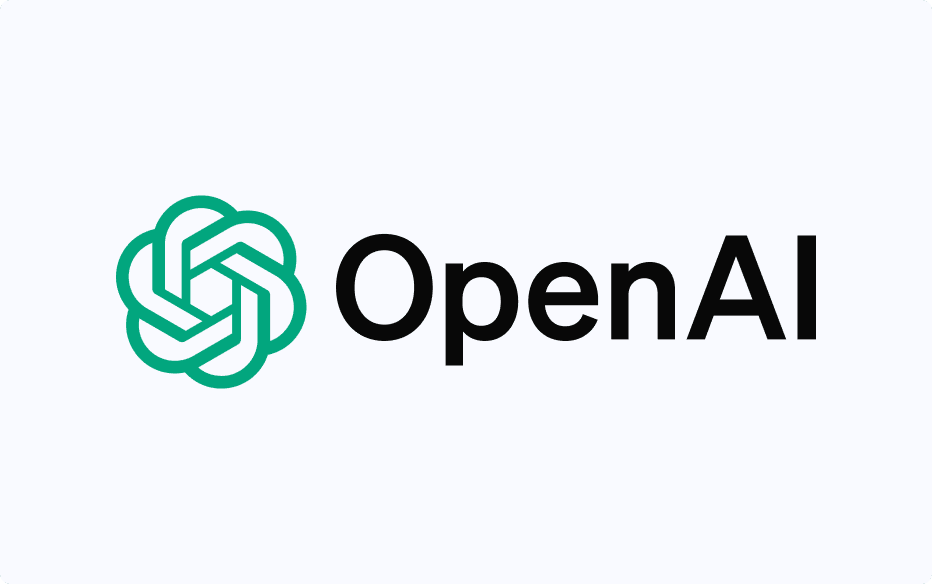
What Font Does OpenAI Use? The Handcrafted Typeface Behind the World's Most Powerful AI
OpenAI builds artificial intelligence that can write code, pass bar exams, and generate images from text. Their website is set in a font hand-drawn by a single type designer in Wellington, New Zealand, based on a 1920s German specimen he found in an archive. The tension between those two facts is the whole story.
What Font Does OpenAI Use? The Handcrafted Typeface Behind the World's Most Powerful AI
There is a font you look at every time you open ChatGPT or visit openai.com, and it is doing a very specific job. It is not trying to look like technology. It is trying to look like thinking.
The typeface is called Söhne. It was designed by Kris Sowersby, a type designer who works out of Wellington, New Zealand, under the banner of Klim Type Foundry. It was released in 2020 after years of development, and it is one of the most admired typefaces produced in the last decade. It is also, on its face, an unlikely choice for a company whose entire product is artificial intelligence.
Söhne is handcrafted, historically grounded, and deeply human. OpenAI automates human cognition at industrial scale. The gap between those two things is not an accident. It is the point.
The Font That Means Sons
Söhne is the German word for sons. The name is a direct acknowledgment of where the typeface came from: it is the spiritual descendant of Akzidenz-Grotesk, a German sans-serif typeface first released in 1896 that became the foundational text of twentieth-century modernist design.
Akzidenz-Grotesk, which translates roughly as "trade gothic" or "jobbing gothic," was not designed to be famous. It was designed for commercial printing: handbills, advertisements, catalogues. It was a workhorse font with no pretensions. And then the Bauhaus got hold of it.
In the 1920s and early 1930s, Bauhaus designers in Germany used Akzidenz-Grotesk and its relatives as the typographic embodiment of a philosophy: that good design is functional, not decorative, that form should follow use, that ornament is a kind of dishonesty. This was a radical position in an era when most typography was highly embellished. The Bauhaus stripped everything back to geometry and weight and proportion.
When Kris Sowersby designed Söhne, he was working from a specific Akzidenz-Grotesk specimen — a mid-century printing sample he encountered in type archives — and he was asking a question that type designers rarely have the courage to ask directly: what would this look like if someone redesigned it today, with modern spacing tools and optical corrections and a full understanding of how text renders on screens? Not a revival. Not a copy. An interpretation made by someone who understood the source material deeply enough to diverge from it intelligently.
The result is a typeface that feels both familiar and impossible to place. If you have seen it before, you cannot quite remember where. If you have not, it reads as obviously correct in a way that is hard to articulate. It has the confidence of a font that knows what it is.
Why OpenAI Chose It
OpenAI did not build its brand identity around Söhne from the beginning. The early versions of the OpenAI website used a more generic sans-serif treatment, and the company's visual identity was, for most of its early years, an afterthought. They were a research organization. The product was the science.
That changed when ChatGPT launched in November 2022 and the company went from a respected AI lab to a cultural phenomenon in the space of a few weeks. Suddenly OpenAI needed a brand that could hold up under the weight of that attention. The rebrand that followed, which brought Söhne to the forefront of their marketing materials and website, made a set of decisions that are worth understanding.
The choice of Söhne over a more obviously technological option, something geometric and constructed-looking, something that signals machine intelligence, was a deliberate positioning move. OpenAI's most persistent challenge has never been convincing people their technology is powerful. The videos, the benchmarks, the capability demonstrations take care of that. Their challenge is convincing people their technology is trustworthy.
Söhne is warm in a way that most technology fonts are not. Its letterforms carry what designers call humanist qualities, small irregularities and variations in stroke width that echo the movement of a hand rather than the precision of a machine. The lowercase letters in particular have a friendliness that pure geometric fonts lack. When you read text set in Söhne, some part of your visual cortex registers it as made by a human, which is an enormously useful quality to have when your product is routinely described in terms that make people nervous.
Google chose Product Sans, a font that looks like it was designed by an algorithm, because Google wants to look like a technology company. OpenAI chose Söhne because they want to look like a thoughtful one. The difference matters.
That is more work than any typeface should have to do. Söhne handles it.
The person who drew it by hand in Wellington probably did not know it would end up on the website of the company making the most consequential technology of the century. Type designers rarely know who will eventually use their work. They just try to make something good enough to be worthy of any purpose.
Kris Sowersby managed that. OpenAI noticed.